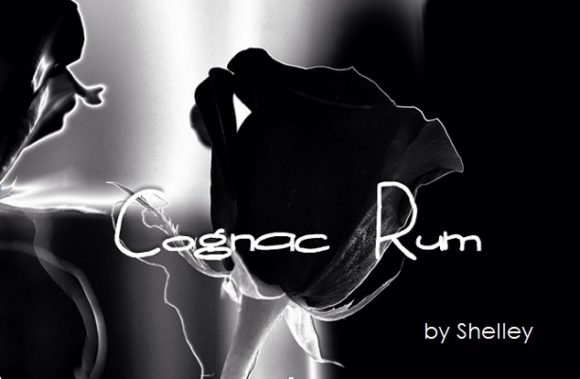
Cognac Rum Font: Elevate Your Designs with a Bold and Unique Handwritten Style
Are you tired of using the same old fonts in your designs? Look no further than Cognac Rum, a bold and unique handwritten font that’s sure to make your creative ideas stand out. In this article, we’ll dive into the world of Cognac Rum and explore its features, benefits, and uses, helping you to unlock its full potential and take your designs to the next level.
What is Cognac Rum Font?
Cognac Rum is a carefully crafted handwritten font that’s designed to add a touch of personality and flair to your designs. With its bold and unique style, it’s perfect for making a statement and grabbing attention. Whether you’re working on a logo, branding project, or social media graphics, Cognac Rum is the perfect choice for designers and crafters looking to add a bit of whimsy and charm to their work.
Key Features of Cognac Rum Font
- Bold and Unique Style: Cognac Rum’s bold and unique style sets it apart from other fonts, making it perfect for designers who want to make a statement.
- Handwritten Script: The font’s handwritten script gives it a personal and organic feel, adding a touch of warmth and character to your designs.
- Highly Versatile: Cognac Rum is highly versatile, making it suitable for a wide range of design projects, from logos and branding to social media graphics and more.
- Easily Readable: Despite its bold style, Cognac Rum is easily readable, making it perfect for use in body text and other applications where legibility is key.
Benefits of Using Cognac Rum Font
So why choose Cognac Rum for your design projects? Here are just a few benefits of using this amazing font:
- Adds Personality to Your Designs: Cognac Rum’s unique style adds a touch of personality and whimsy to your designs, helping you to stand out from the crowd.
- Perfect for Branding and Logo Design: The font’s bold and memorable style makes it perfect for use in branding and logo design, helping you to create a lasting impression.
- Great for Social Media Graphics: Cognac Rum’s highly readable and visually appealing style makes it perfect for use in social media graphics, helping you to grab attention and engage your audience.
How to Use Cognac Rum Font in Your Designs
Using Cognac Rum in your designs is easy. Here are a few tips to get you started:
- Pair it with a Simple Background: Cognac Rum’s bold style works best with simple backgrounds, allowing the font to take center stage.
- Experiment with Different Colors: The font’s versatility means it works well with a range of colors, so don’t be afraid to experiment and find the perfect combination for your design.
- Use it to Add Emphasis: Cognac Rum’s bold style makes it perfect for adding emphasis to key messages or calls-to-action in your designs.
Cognac Rum is a bold and unique handwritten font that’s sure to elevate your designs and make your creative ideas stand out. With its highly versatile style, compatibility with a range of design software, and ease of use, it’s the perfect choice for designers and crafters looking to add a bit of personality and whimsy to their work. So why wait? Download Cognac Rum today and start taking your designs to the next level!
- Font Type: Handwritten
- Font Style: Bold, Unique